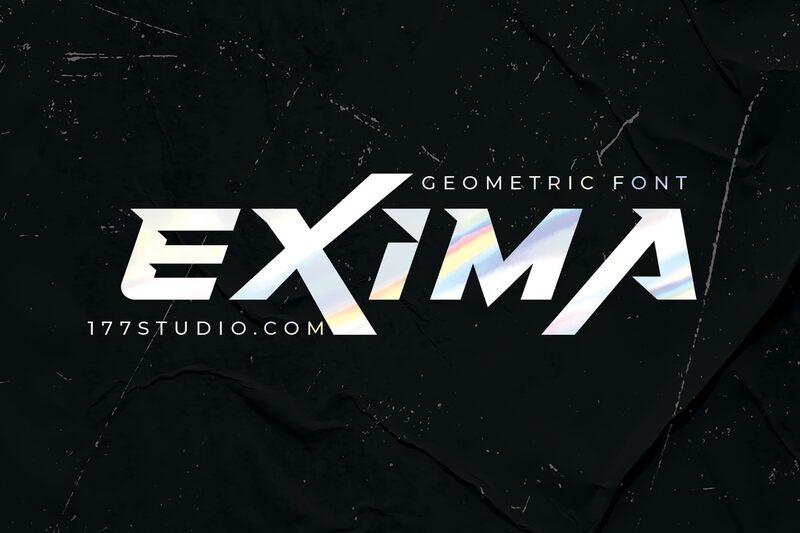
Exima Geometric Regular
Introducing Exima Geometric - a wide and futuristic display font designed by 177Studio.com. Perfect for creating eye-catching posters, logos and web designs that stand out from the crowd. Try this bold and modern typeface for captivating product packaging designs, beautiful book covers, or to give your projects a unique futuristic touch.